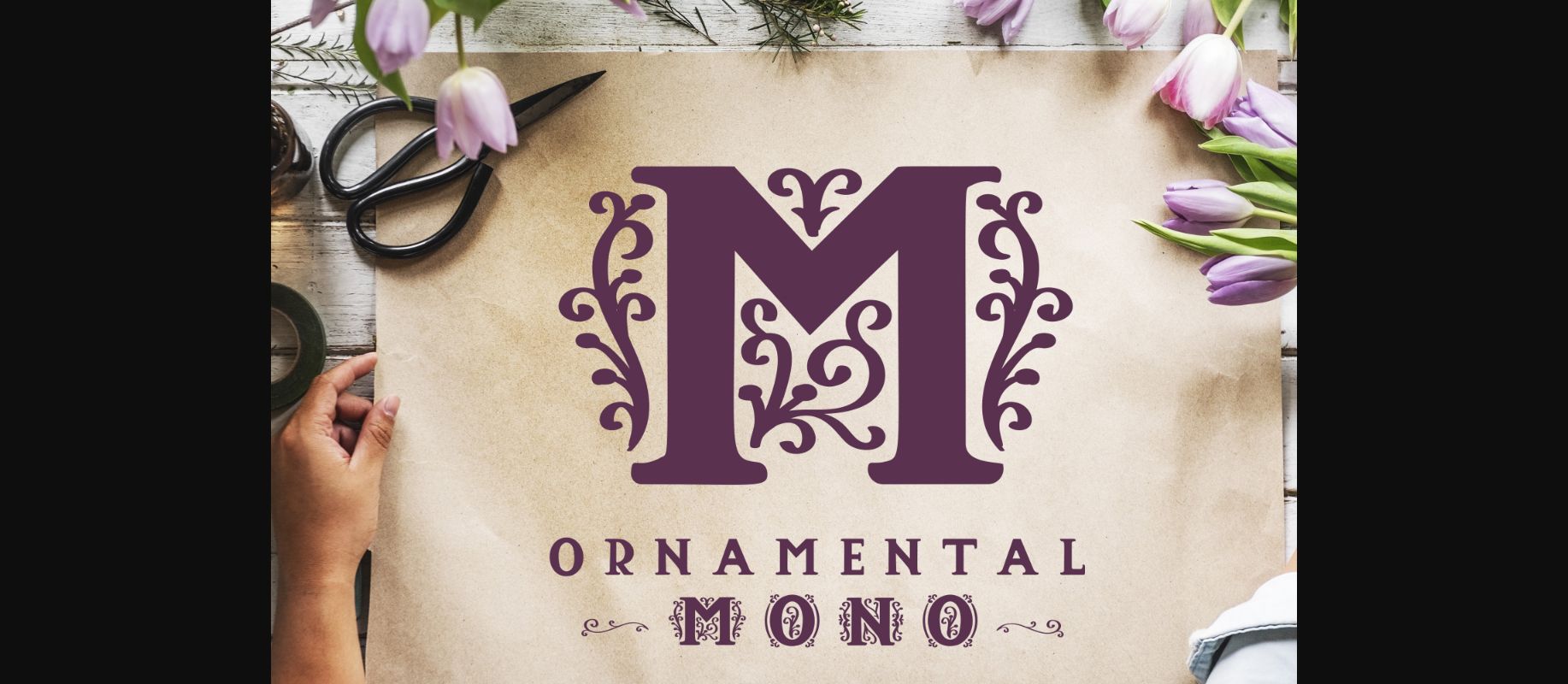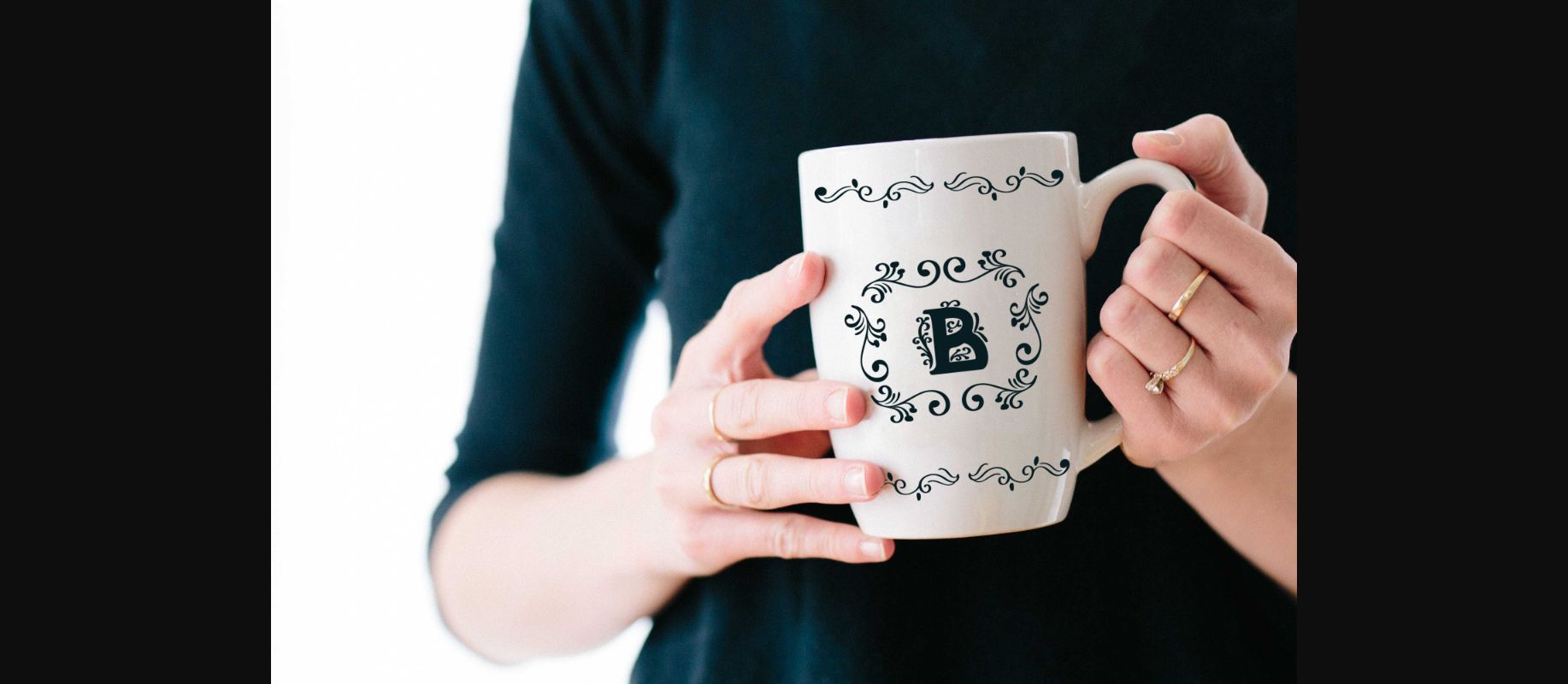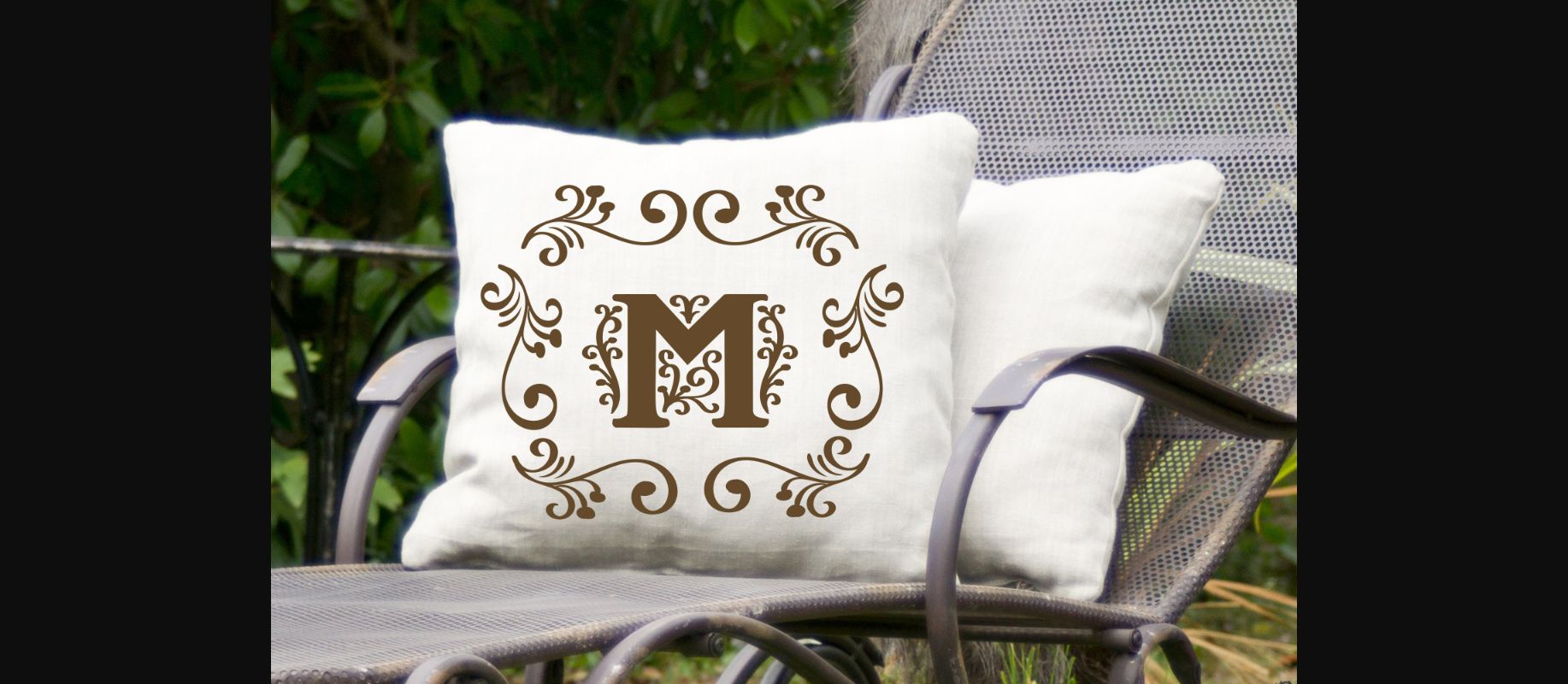
About Ornamental Mono Font
Ornamental Mono is a decorative serif, where all capital letters and numbers come with small embellishments.
Making it a perfect font for creating monograms, wedding invites and much more. The lowercase characters are fun playful bunch, that perfectly combine with the decorative uppercase letters.